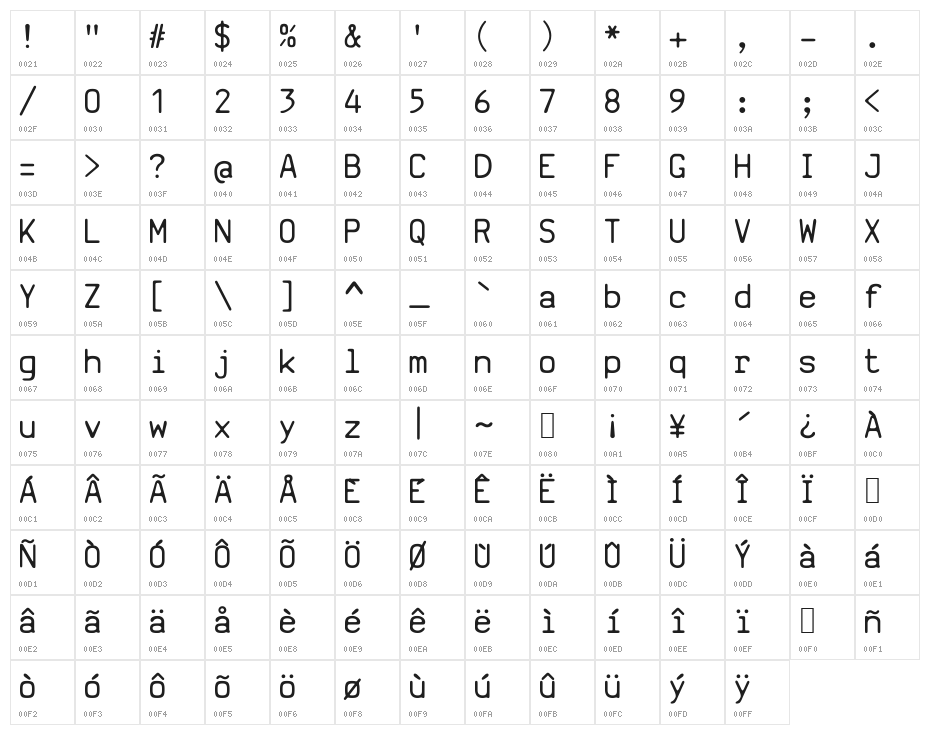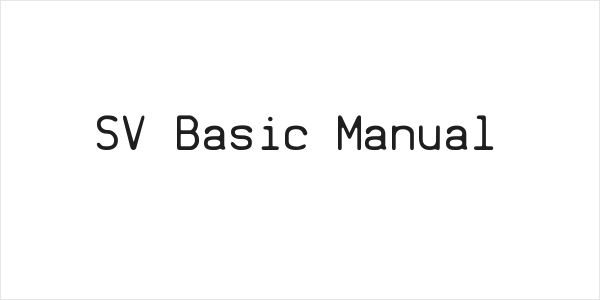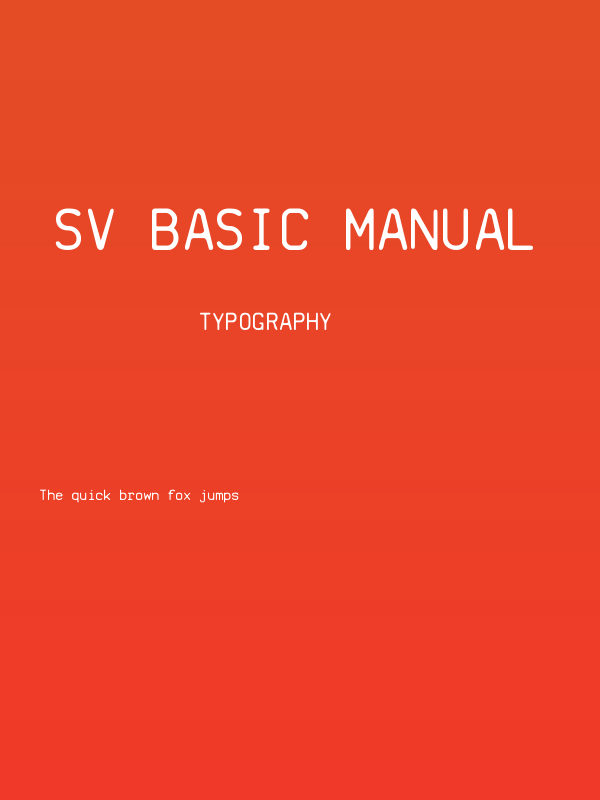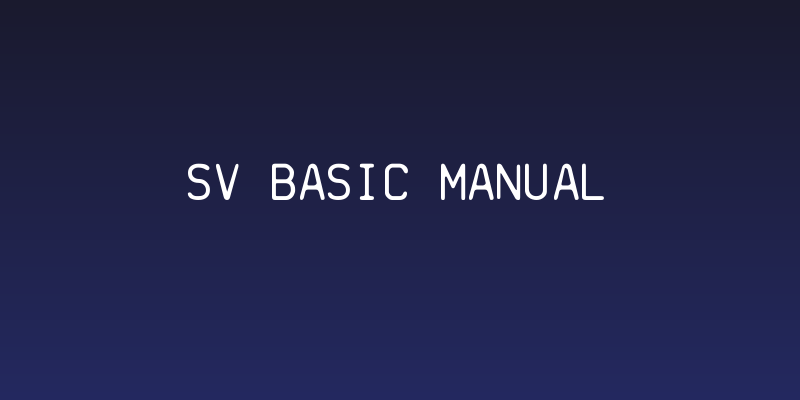
SV Basic Manual Font
| 使用场景 | Headlines, Body text, Logos |
| 推荐项目 | Ideal for user interfaces, educational materials, children's books, and branding projects that require a modern and approachable look. |